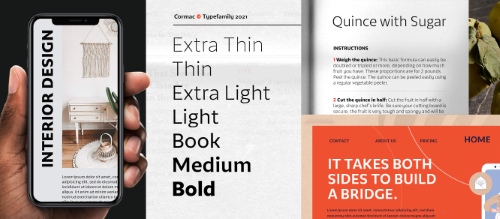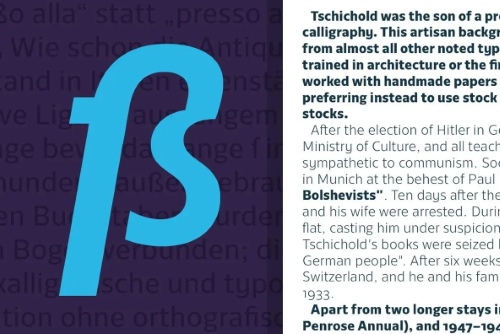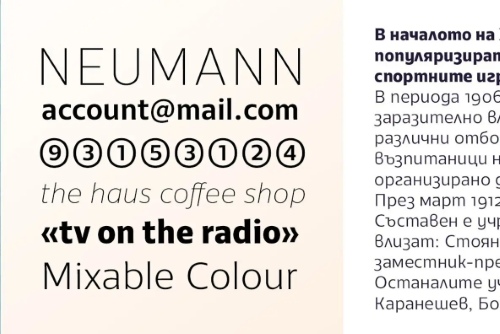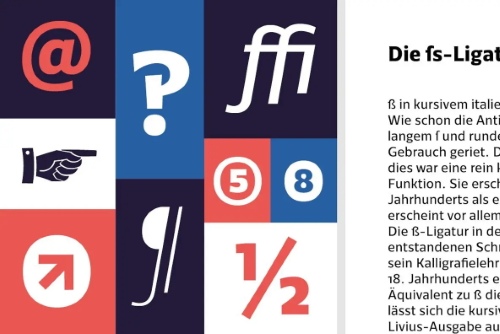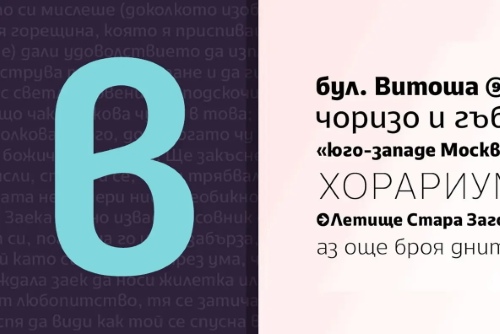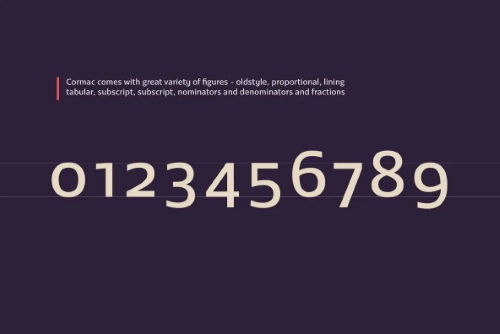
Simplicity can be sophisticated too
just take a glance at Cormac!
7 styles + Italics, 696 glyphs Roman, 658 glyphs Italic | Cyrillic, Extended Latin
- The updated version of this humanist typeface retains the large x-height and slightly flared strokes of its predecessor, with the latter a throwback to the font’s calligraphic origins. Our goal with this 2.0 adaptation remained the same - deliver a stripped-down, unadorned font that is stylish, functional and true to our studio principles. Cormac’s slightly chiseled appearance carries minimal stress and contrast, while awakening memories of Glyphic Serifs and engraved inscriptions. This time around we have included seven weights ranging from Extra Thin to Bold, with matching ‘true’ italics and Cyrillic support, as well as a lavish range of fractions, numerals, ligatures, alternates and special characters. Merging contemporary humanistic qualities with more traditional proportions, Cormac nevertheless remains open, friendly and readable in a classic, timeless manner.